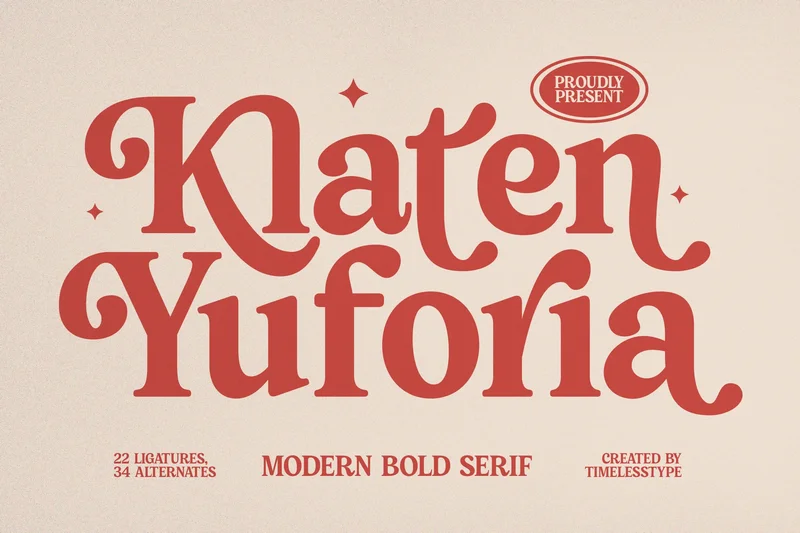
Klaten Yuforia – Modern Bold Serif Font
Klaten Yuforia is a modern bold serif font with vintage-inspired curves and elegant ligatures, designed to bring warmth and sophistication to your designs. Featuring 22 ligatures and 34 alternates, this typeface is perfect for logos, posters, invitations, branding, and editorial layouts. With its bold yet graceful character, Klaten Yuforia blends modern style with classic charm, making it an ideal choice for both print and digital projects.